Best fonts for endorsement graphic design play a crucial role in shaping audience perception. Make sure to choose fonts that complement both your brand’s identity and the content while ensuring readability across different platforms.
Key Takeaways:
- Keeping readability in mind and maintaining visual harmony is the way to create a memorable endorsement content.
- By selecting the correct font within each category, you can create more integrated graphic elements.
Our Best Fonts for Endorsement Graphic Design
When choosing fonts for advertising best font practices, it’s essential to consider readability, audience appeal, hierarchy, and practicality. And with the wide variety of endorsement content, we’ve compiled multiple options for 10 categories. Let’s check them out!
Automotive
1. Dragna
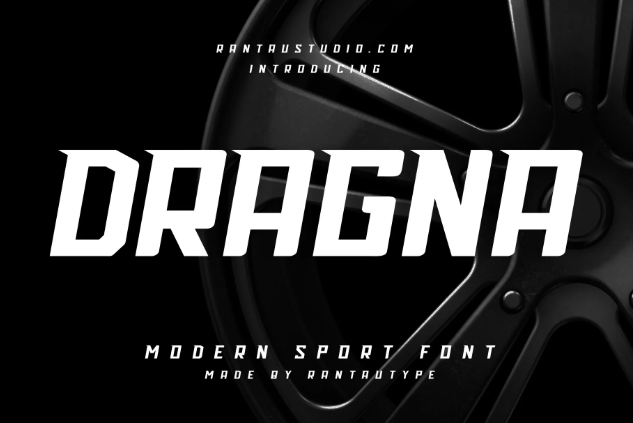
Dragna bold display font equipped with high-octane vibes for an aggressive, attention-grabbing mechanism.
2. Best Racer
Best Racer is a font designed for automotive endorsements with its bold, slanted letterforms.
3. Rush Driver
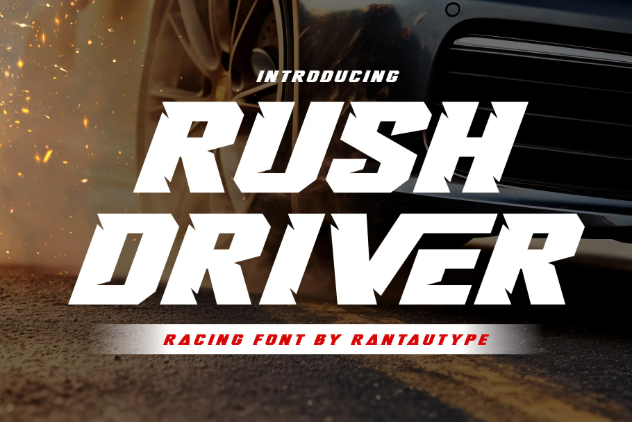
With its bold, aggressive look, Rush Driver represents a metallic look and speedy aesthetics.
4. Bigera
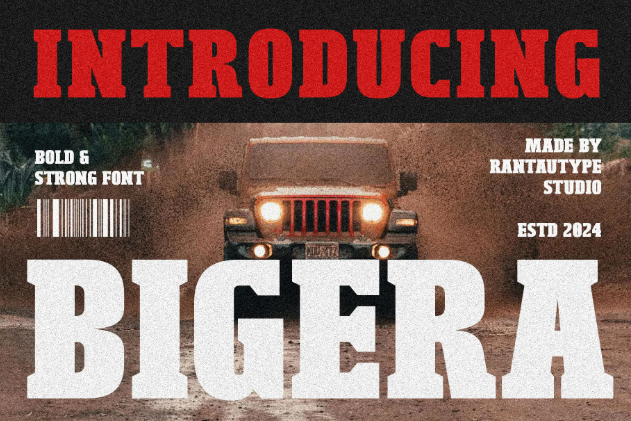
Bigera is a bold display font with strong serifs that ensures legibility and conveys authority in any design.
5. Cadires
Cadires features modern details such as clean edges, pixel corner cuts, and condensed letters. It’s good for dynamic, adrenaline-fueled advertising.
Baby Product
1. Caronly
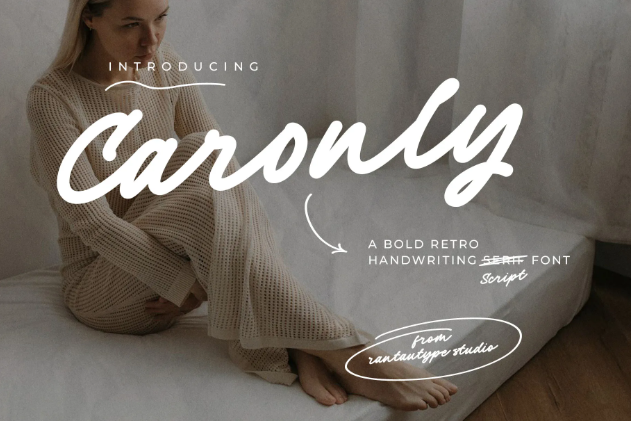
For baby products, the best fonts for endorsement graphic design start with Caronly. This bold, script font has great versatility and evokes a fluffy character.
2. Muntea
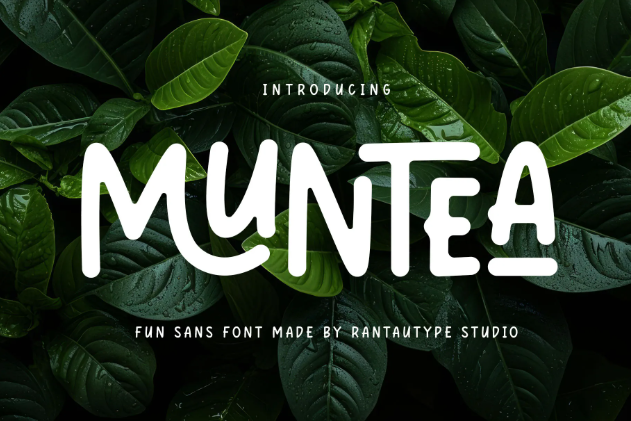
Muntea offers a modern approach to your baby-related designs with its playful letterforms.
3. Bepory
Bepory’s curly letterforms will make baby product advertising more playful, inviting, and endearing.
4. Shiny Land
This bubbly font has cute, chubby, and fun letterforms that work well with vibrant colors.
5. Viraly
Being bubbly is an understatement because Viraly is a bold display font with adorable letterforms.
Beauty and Skincare
1. Dasiera
Dasiera is a stylish serif font with little squiggles as its signature detail. It’s perfect for high-end beauty products branding that emphasizes luxury.
2. Hediora
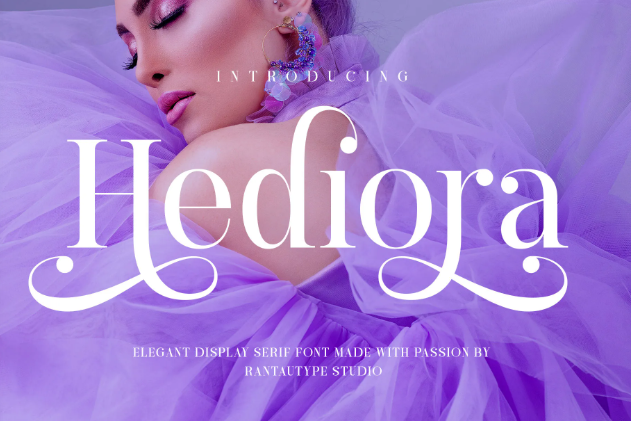
Hediora displays a familiar, elegant serif font with more ornate letterforms in its ligatures and alternates.
3. Balenia
Aside from its natural beauty, Balenia also combines retro elements into its modern style.
4. Bindacy
Bindacy is an elegant script font with condensed retro visuals for a timeless beauty.
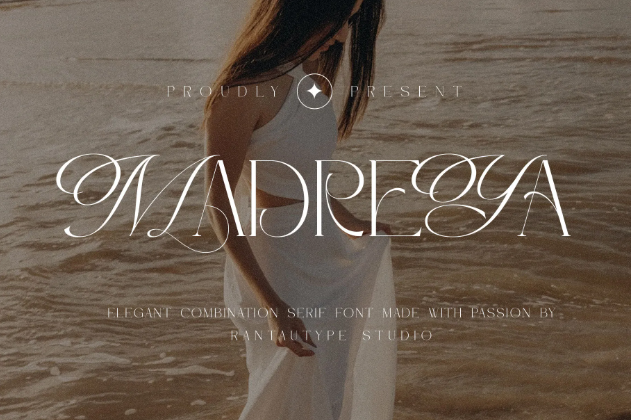
Madreya is among the best fonts for endorsement graphics because it brings an unexpected beauty.
Educational
1. Angelior
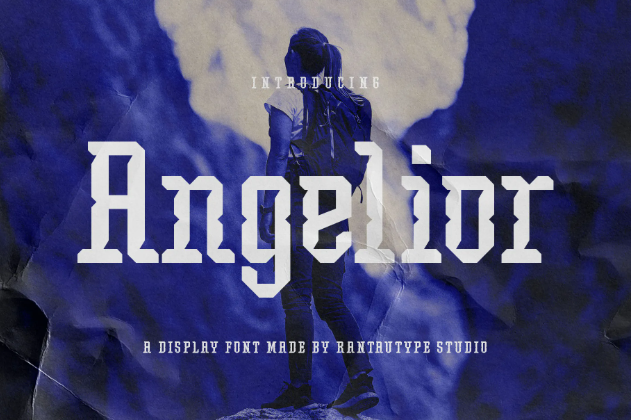
Angelior is a stylish numerical-styled font for your educational endorsements.
2. Meragon
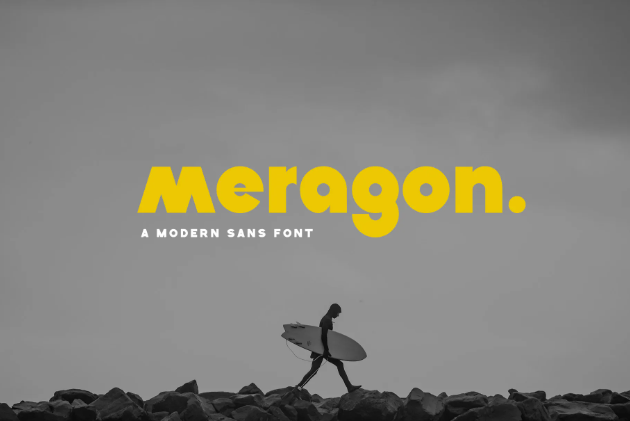
Meragon is a simplistic font with sleek designs and great legibility.
3. Mencary
A typewriter font like Mencary can add nostalgic vibes while ensuring readability.
4. Gendy
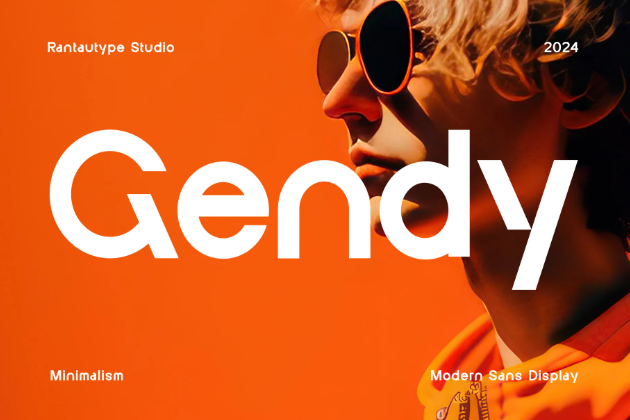
Gendy is a minimalist sans font that has unique details for your educational content.
5. Moneis
With its sleek, angular typeface and surprising details, Moneis is the perfect font for literacy content.
Fashion
1. Starlium
Starlium is a bold and masculine script font with distinctive vintage elements, a good choice for endorsing timeless fashion products.
2. Belisona
Belisona is a professional option for your fashion endorsement with a vintage persona.
3. Cenoria
Cenoria turns the classic serif look into flared ornaments to fit your fashionable design for endorsement projects.
4. Romaben
Romaben masterfully balances thick and thin strokes and brings back the nostalgic atmosphere.
5. Hegissa
Hegissa is the font you need for an elegant look. This font can turn every campaign into a statement of luxury and refinement.
Finance and Investment
1. Beyonest
Beyonest should be your go-to font for easy authority and credibility in your finance graphic designs.
2. Hintterland
Hintterland is another signature font, but this one uses an upright look with more swashful and confident strokes.
3. Dessthia
The ornate Dessthia is one of the best fonts for endorsement graphic design. It brings a refined, high-value aesthetic to financial and investment branding.
4. Consultant
For instant authority and credibility, use Consultant. This professional font carries a touch of elegance.
5. Huntberg
Huntberg is a signature-style typeface, great for investment branding with elegant and luxurious visuals.